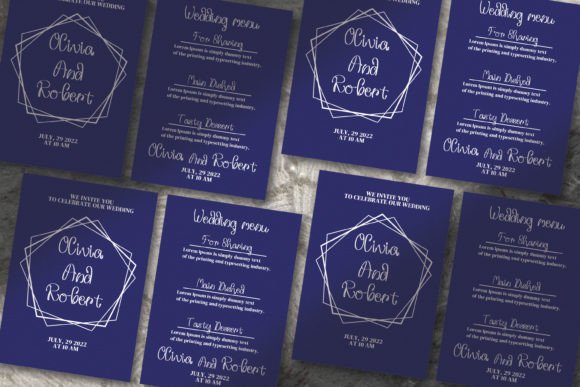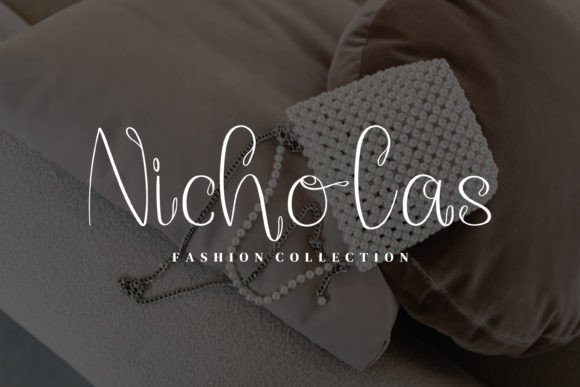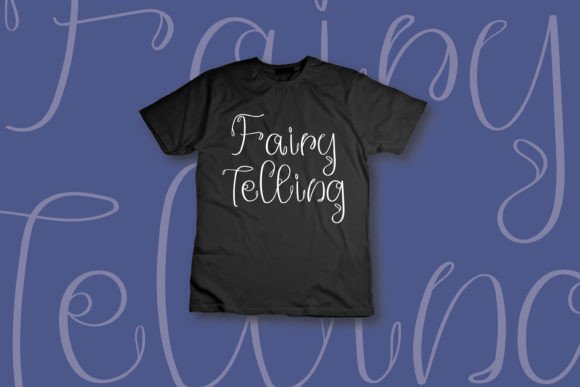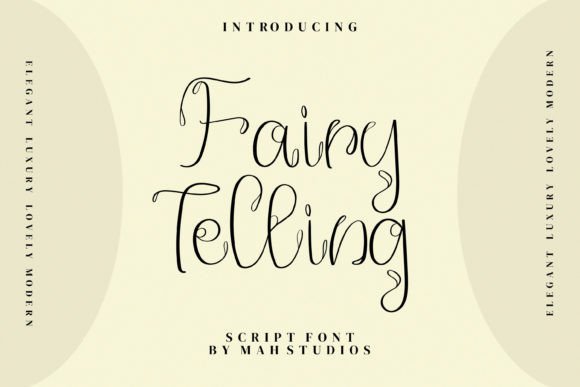
Introduction to Fary Telling Font
Fary Telling is a magical script font carefully created with a touch of elegance.
Whether you’re looking for fonts for Instagram or calligraphy scripts for DIY projects, this font will turn any creative idea into a true piece of art .
Key Features of Fary Telling Font
Why Choose Fary Telling Font?